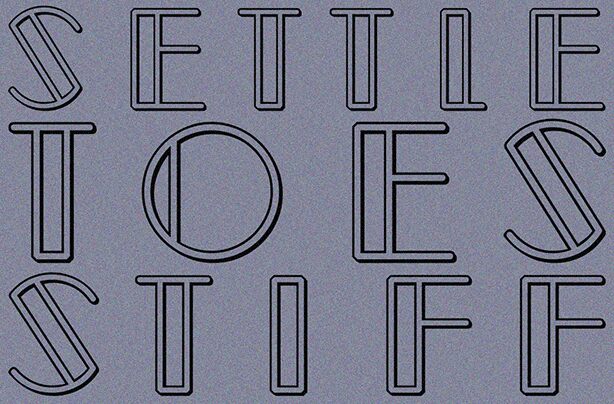
Heuochs font family designed by Vladimir Nikolic has two decorative font styles that combine both retro and futuristic elements into one complex composition. The designer draws all its inspiration from the classic neon signs that decorated shop and hotel windows in tourist hotspots mainly during the 80s & 90s. The minimalist geometric approach taken makes this font suitable for different formal, modern, and artistic designs where elegance is required.
The structured and clean approach in Heuochs gives it a modern look. Light up the imagination of your audience by using this typeface in logos, titles, invitations, posters, packaging, T-shirt designs, infographics, games, or educational projects. The font can also be combined with different fonts for an outstanding visual effect.